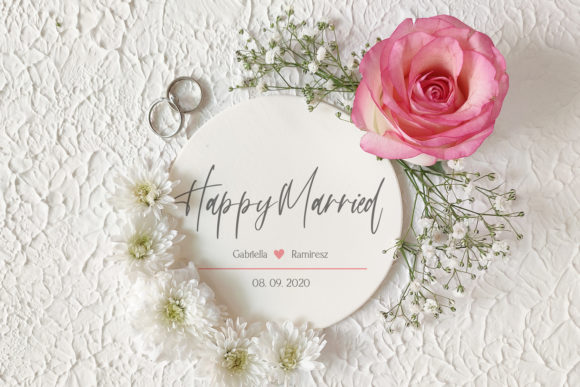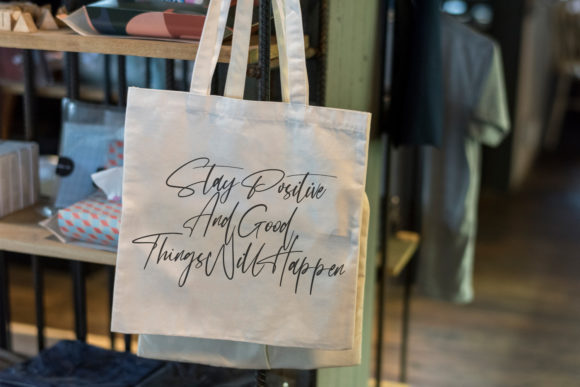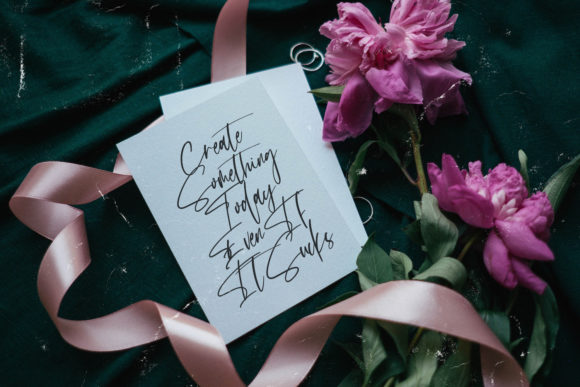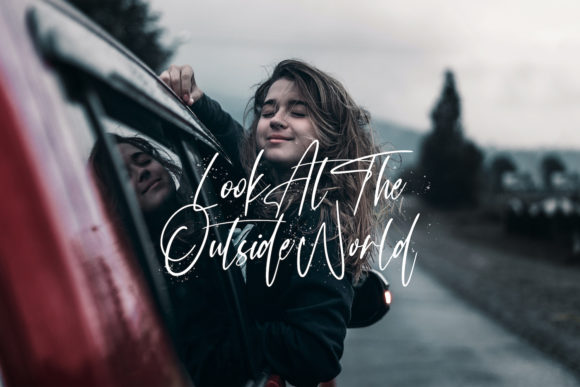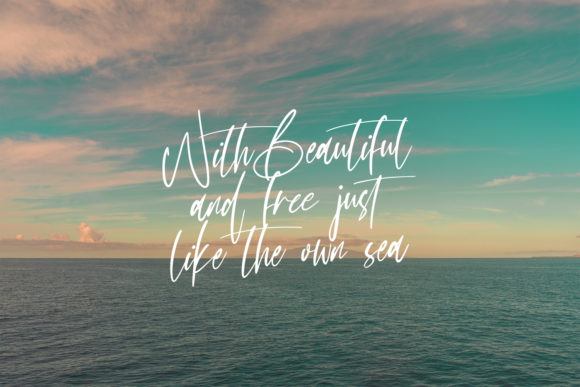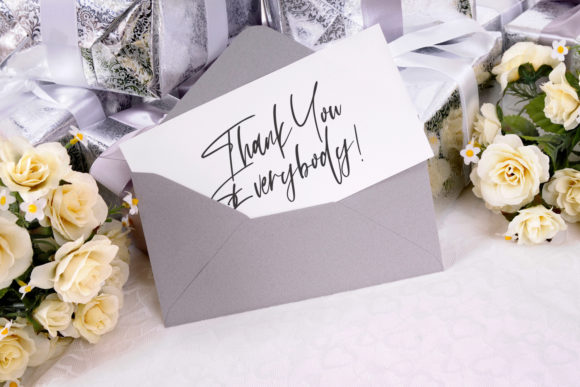
Introduction to Hunthers Dwayne Font
Have you ever stared at a blank page, pencil hovering above paper, waiting for the perfect idea to strike? For many designers, that moment of creative clarity is what drives us to bring our visions to life. It’s a moment where the right tools can make all the difference, and that’s where Hunthers Dwayne Font comes in.
This elegant and flowing handwritten font is a game-changer for designers looking to add a touch of sophistication to their creative projects. With its beautiful and well-balanced characters, Hunthers Dwayne Font is the perfect design resource for those who want to elevate their work without sacrificing style. Whether you’re working on a personal project or a client’s high-quality design, this versatile font is sure to make your ideas shine.
Key Features of Hunthers Dwayne Font
- Unique, handwritten design style with a personal touch, ideal for creative projects and personal branding.
- High-quality font with a wide range of characters, including uppercase and lowercase letters, numbers, and punctuation marks.
- Designed to be versatile and easy to read, making it perfect for a variety of applications, from logos to headings and body text.
- Includes a large character set with multilingual support, making it a great choice for designers working on international projects.
Honest Review: Hunthers Dwayne Font
As a designer, I’m always on the lookout for high-quality fonts to elevate my creative projects. Recently, I stumbled upon Hunthers Dwayne Font, and I’m excited to share my honest review with you.
What works well: ✨ Hunthers Dwayne Font is a great addition to any design resource library. It’s free to download, making it an excellent choice for designers on a budget. The font is highly versatile, suitable for both body text and headings. Its clean and modern design makes it perfect for various creative projects, from logos to brochures.
The font also features a transparent background, allowing for seamless integration with other design elements. I appreciate the level of detail and attention to design that the creators have put into Hunthers Dwayne Font.
Limitations: ⚠️ While Hunthers Dwayne Font is an excellent choice, it may not be suitable for all design projects. The font is not as extensive as some other popular font families, which may limit its use in certain contexts. Additionally, the font’s design may not be to everyone’s taste.
Overall impression: Hunthers Dwayne Font is a solid addition to any designer’s library. Its high quality, versatility, and free download make it an excellent choice for creative projects. While it may have some limitations, I believe it’s a great resource for designers looking for a modern and clean font.
- Modern and clean design
Hunthers Dwayne Font
Hunthers Dwayne Font is a high-quality design resource ideal for creative projects. This versatile font features a transparent background, making it perfect for use in various design applications.
Tips for Getting the Most Out of Hunthers Dwayne Font
To maximize the use of Hunthers Dwayne Font, experiment with different font sizes, colors, and styles. Combine the font with other design elements to create a visually appealing design.
Hunthers Dwayne Font is suitable for various design projects, including business cards, brochures, and social media graphics. Its versatility makes it an excellent choice for designers looking for a high-quality font resource.